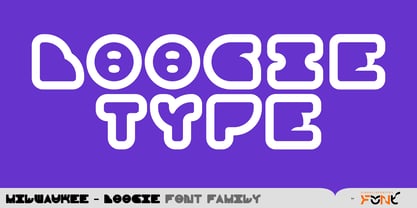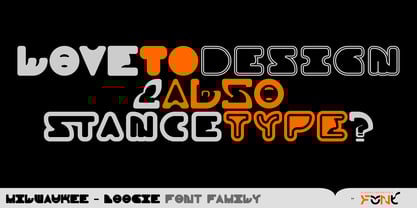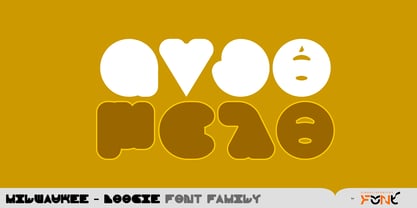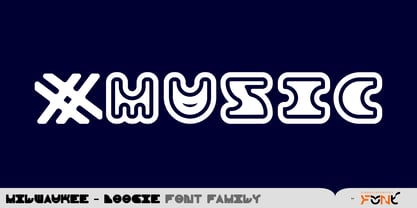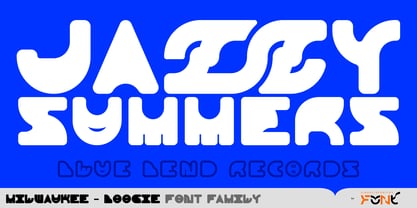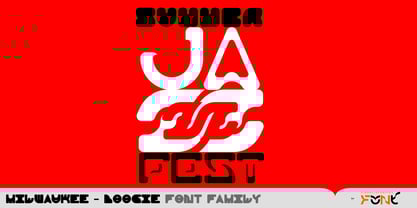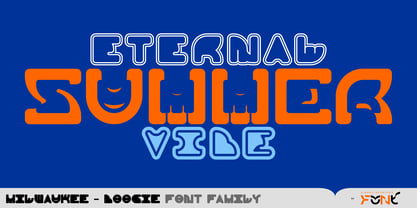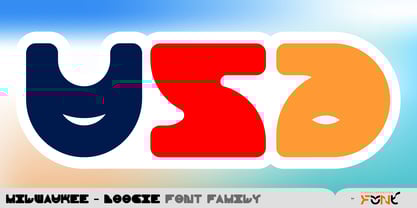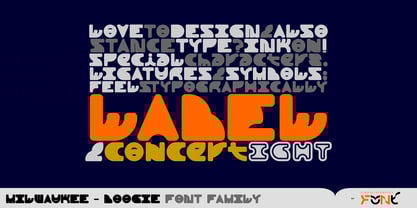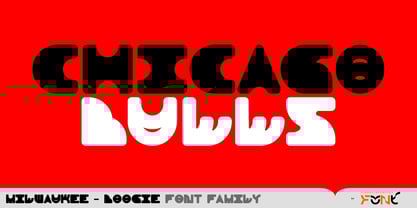
Milwaukee Boogie
La familia tipográfica Milwaukee Boogie fue diseñada por Tony Evreniadis y publicada por VisualizeUnited Fonts. Milwaukee Boogie contiene 6 estilos y opciones de paquete familiar.
Milwaukee Boogie Font Family, is a shaken up approach to the initial Milwaukee Font Family; as the name suggests, with a Groove. Having that musical touch, it is suggested for “All That Move” that one can hear, see, sing, dance to & feel. It consists of uppercase & lowercase Latin & Extended Latin, Greek & Central European characters. It was initially inspired by Byzantine and Japanese typography and later from the cityscape of Milwaukee and its music scene, thus its name. This typeface comes in three styles and is suggested for logos, short titles, social media marketing, book covers, posters, music labels and other applications you will choose to go with. Enjoy Designing & Get Your Boogie On!
We all envision to be able to create. This being said, Visualize aka Tony Evreniadis, a MultiDisciplinary Designer~Art Director~Founder of VisualizeUnited℠ designs typefaces as a way to contribute with continuous creativity. His fonts are coded as Opentype, in Latin, Extended Latin, Central European & Greek character-set, with ligatures selectively. They are optimally utilized, currently, as display fonts.Thank You!